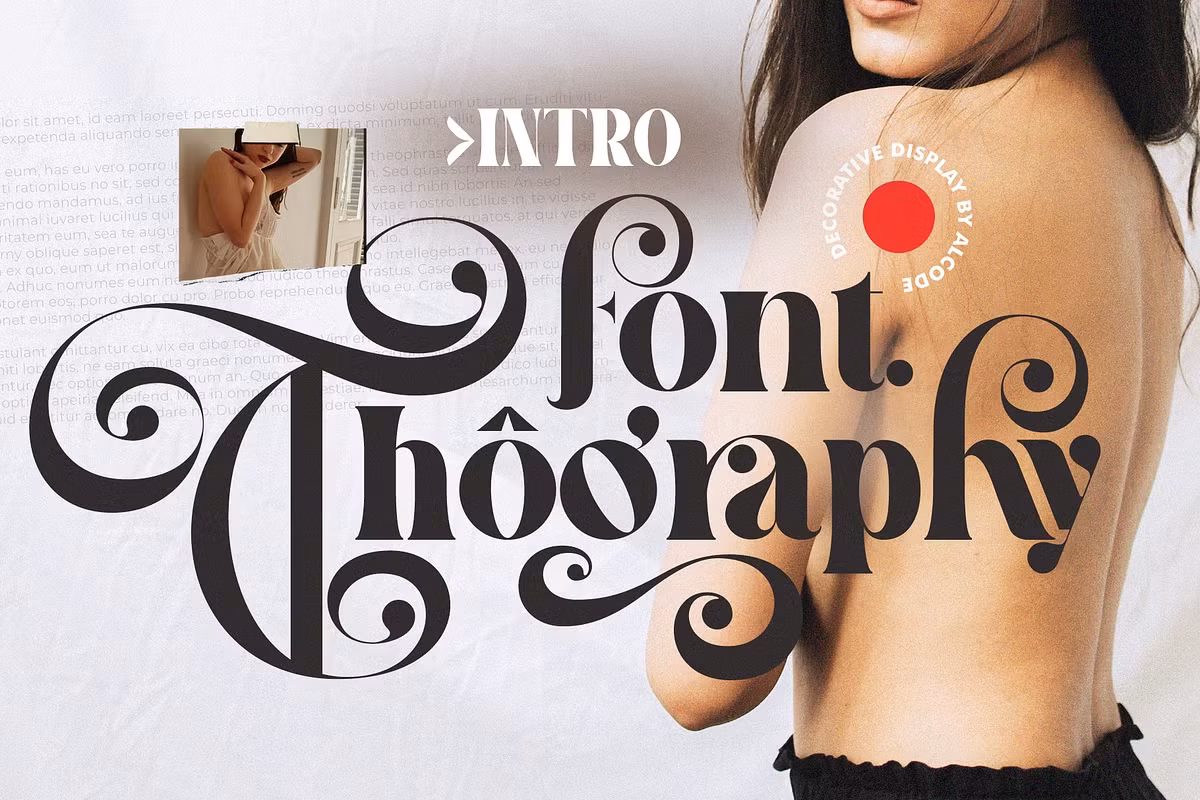
This creative font is perfect for graphic design studios, typography workshops, design education materials, creative agency branding, art director portfolios, typographic posters, design conference materials, and professional typography showcases. Its artistic character makes it ideal for projects celebrating the craft and artistry of letterform design.
Font Thography is exciting because it embodies the essence of typographic excellence and design mastery, featuring carefully crafted letterforms that demonstrate sophisticated understanding of type anatomy and visual hierarchy. The font showcases perfect balance between artistic expression and functional readability, making it a testament to the designer's skill and attention to typographic principles. Its innovative approach to letterform construction inspires creativity while maintaining professional standards.
The Font Thography family typically includes multiple weights and styles, along with alternate characters and stylistic sets that demonstrate various typographic techniques. Many versions feature educational elements like construction guides, baseline references, and demonstration glyphs that showcase proper typography practices.
Whether you're developing design educational content, creative portfolio materials, or typography-focused branding, Font Thography Free Download provides the perfect combination of artistic inspiration and technical excellence. This typeface celebrates the art of typography while delivering practical functionality for professional design applications. Its sophisticated character appeals to typography enthusiasts and design professionals who appreciate the subtle nuances of expertly crafted letterforms, making it an essential resource for projects that honor the rich tradition and ongoing evolution of typographic design and visual communication excellence.